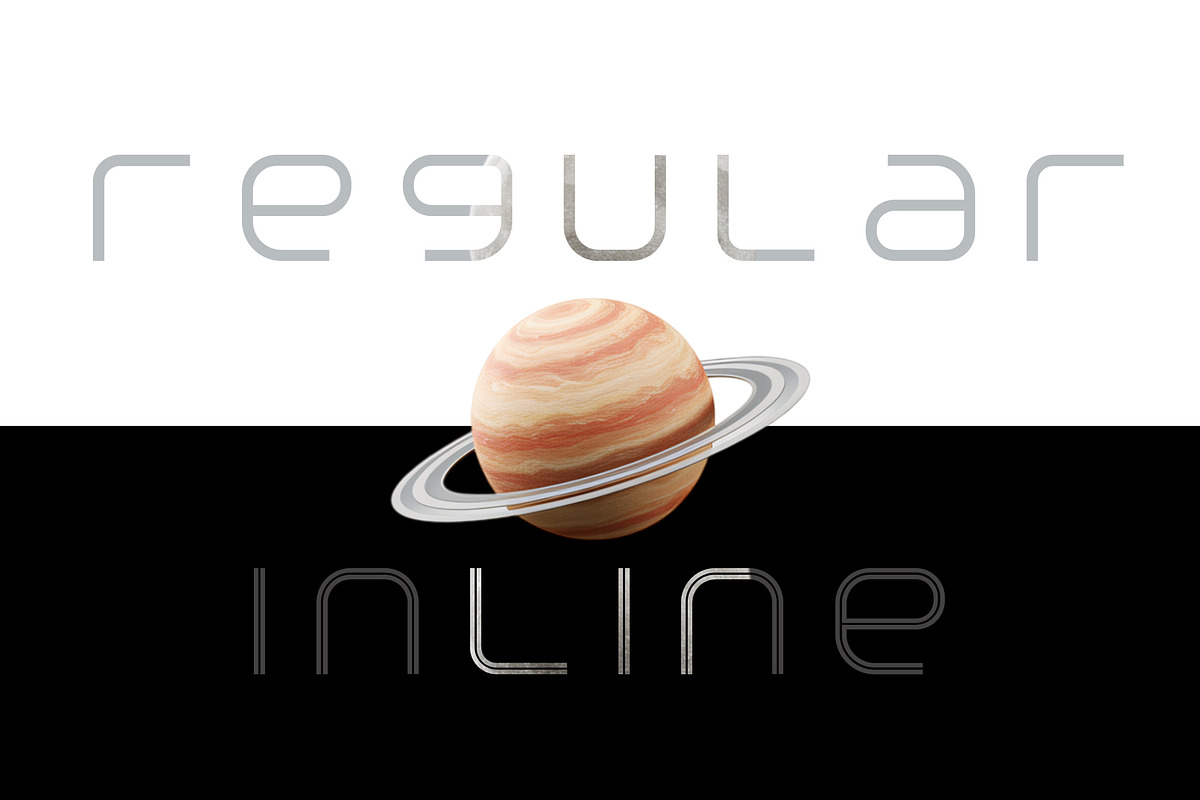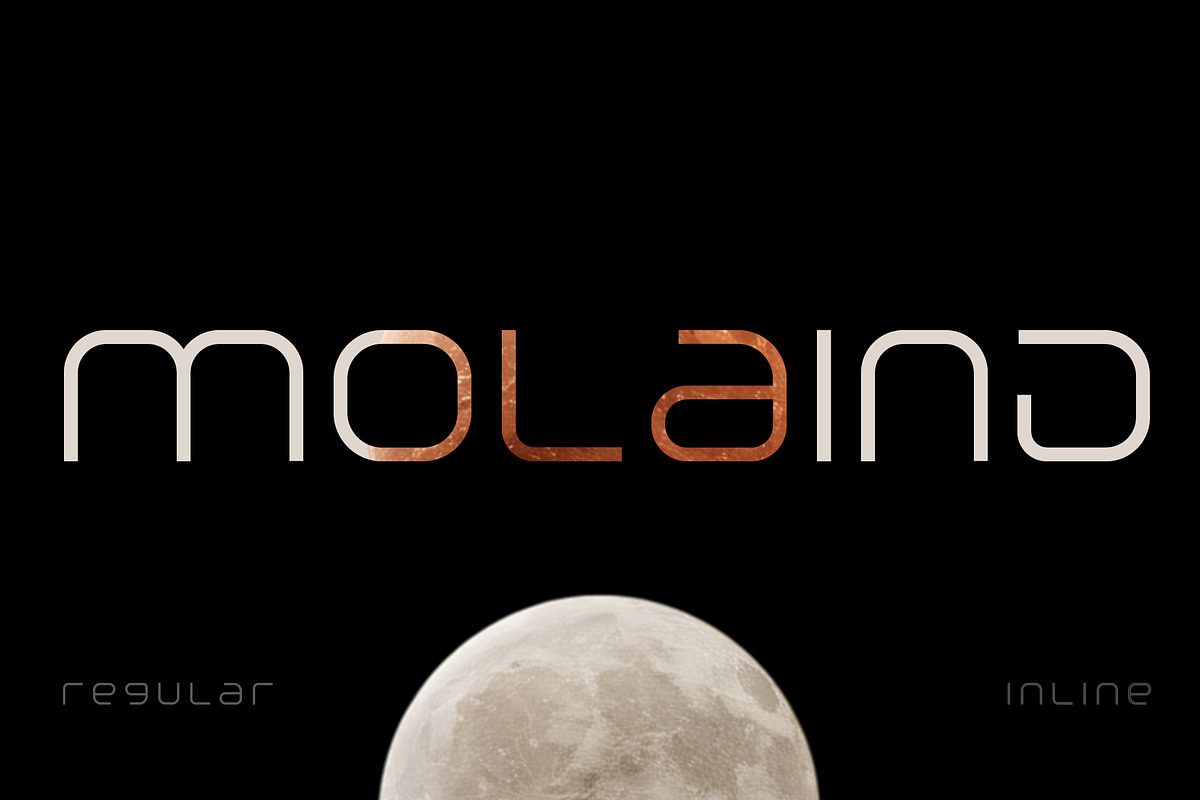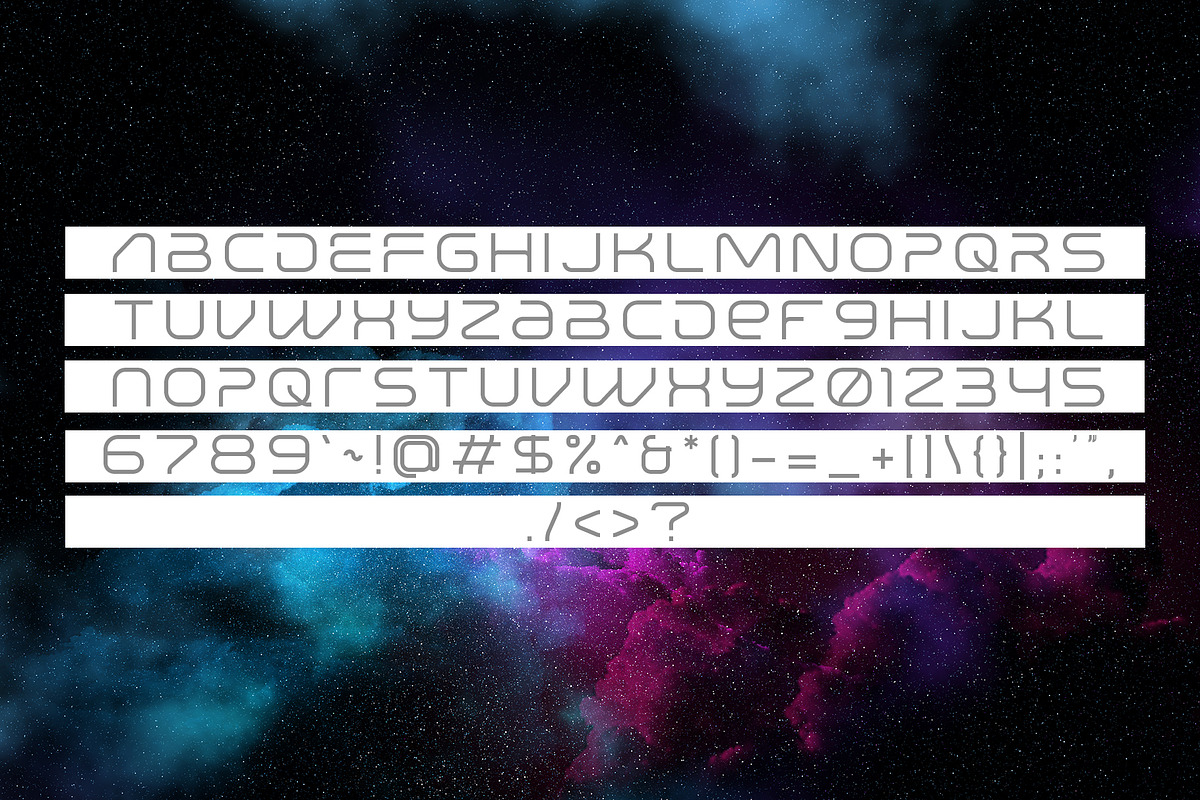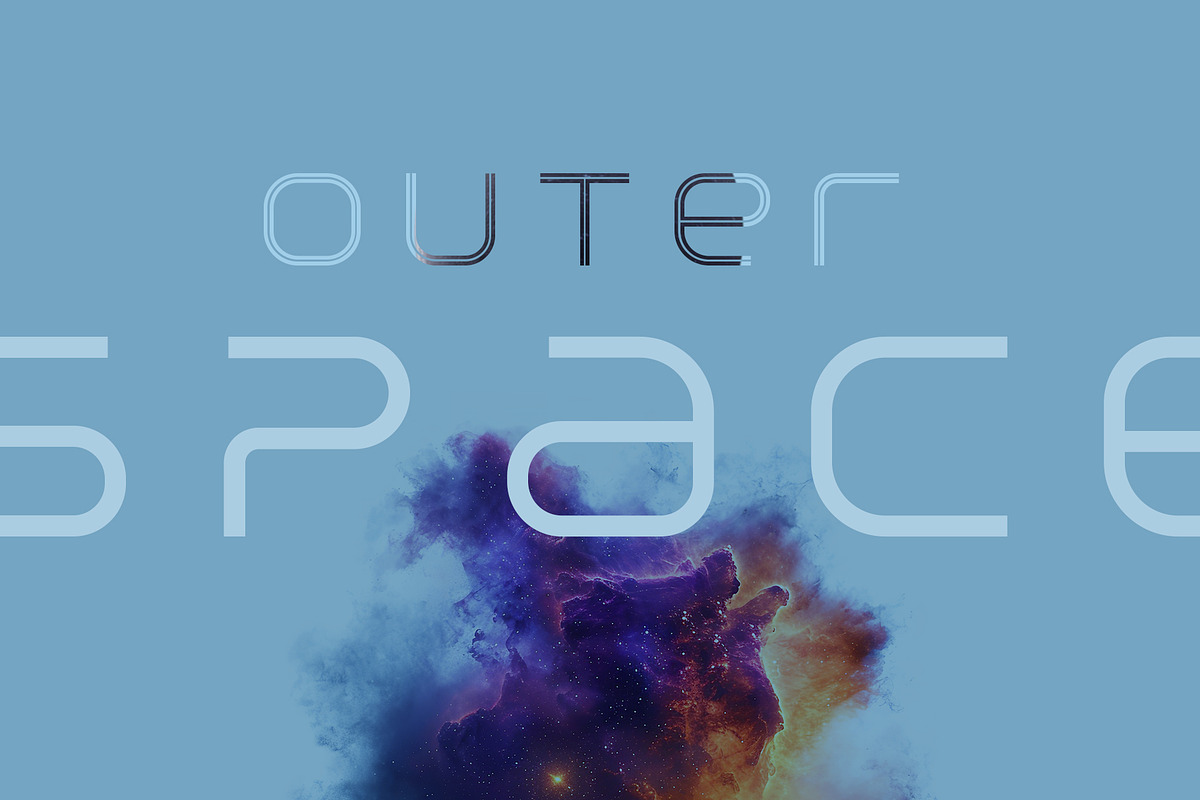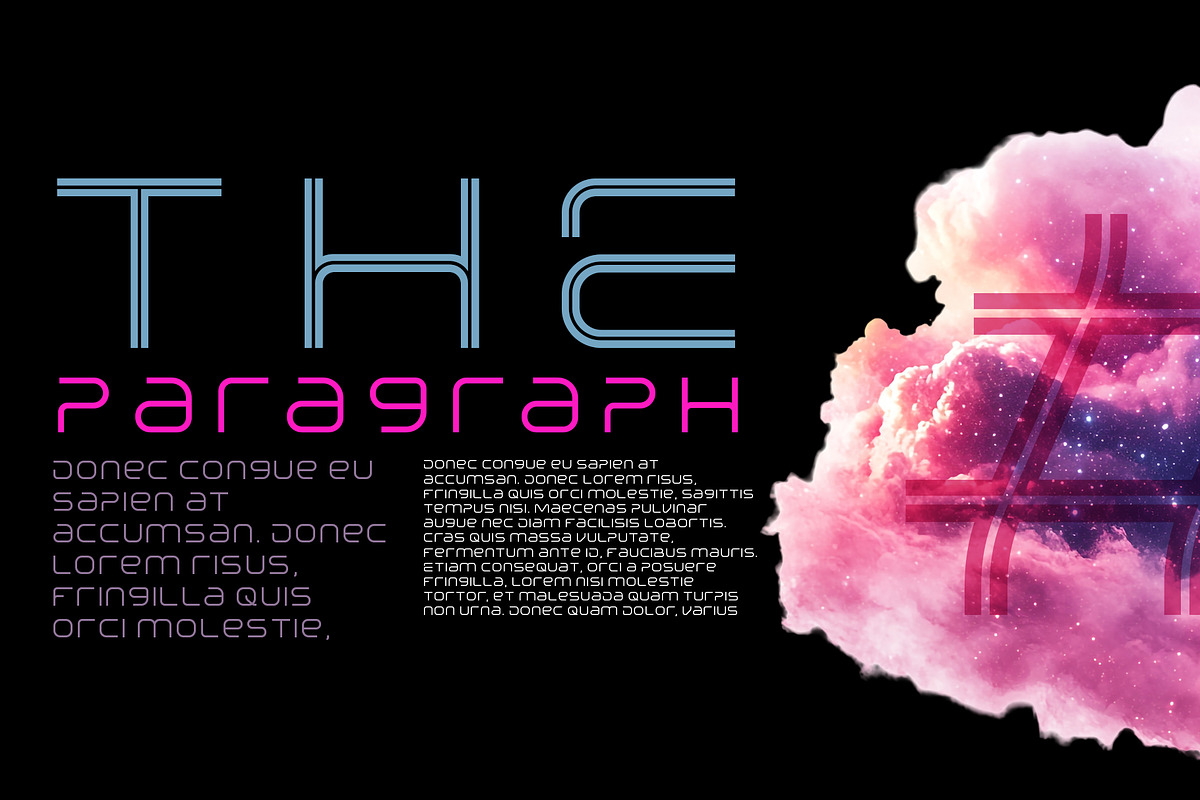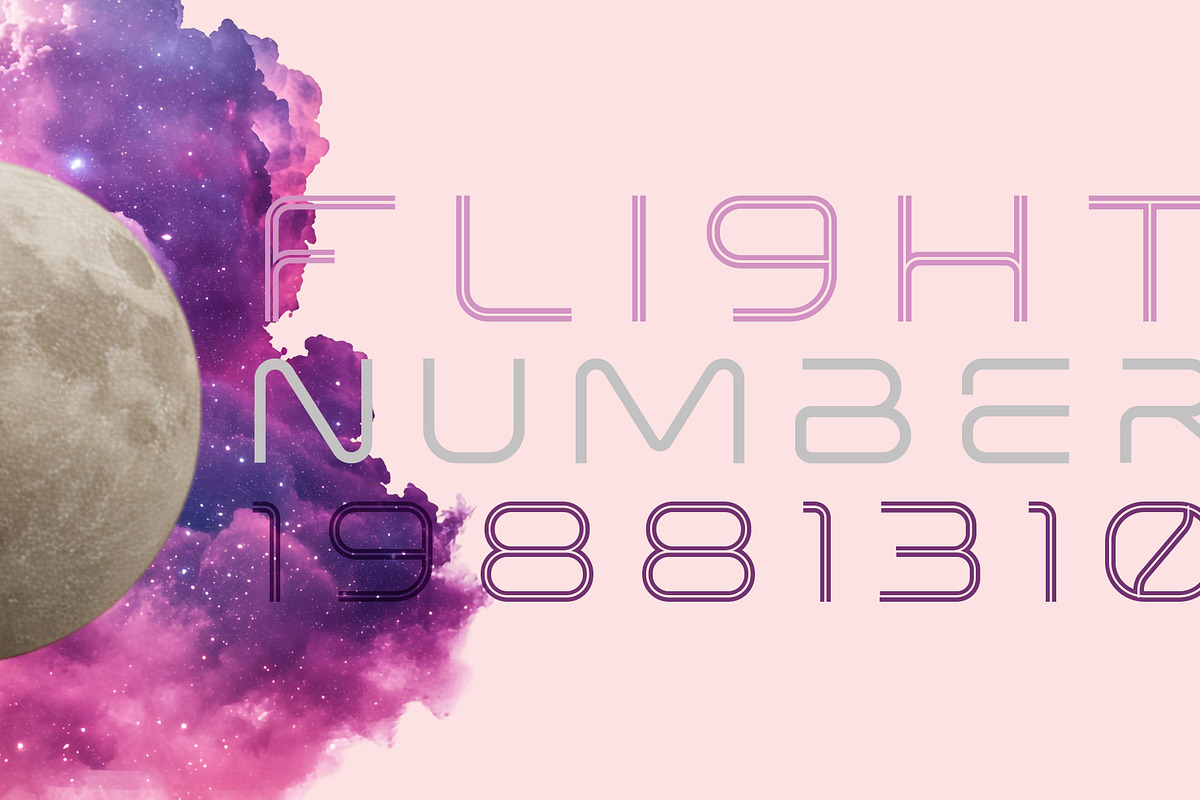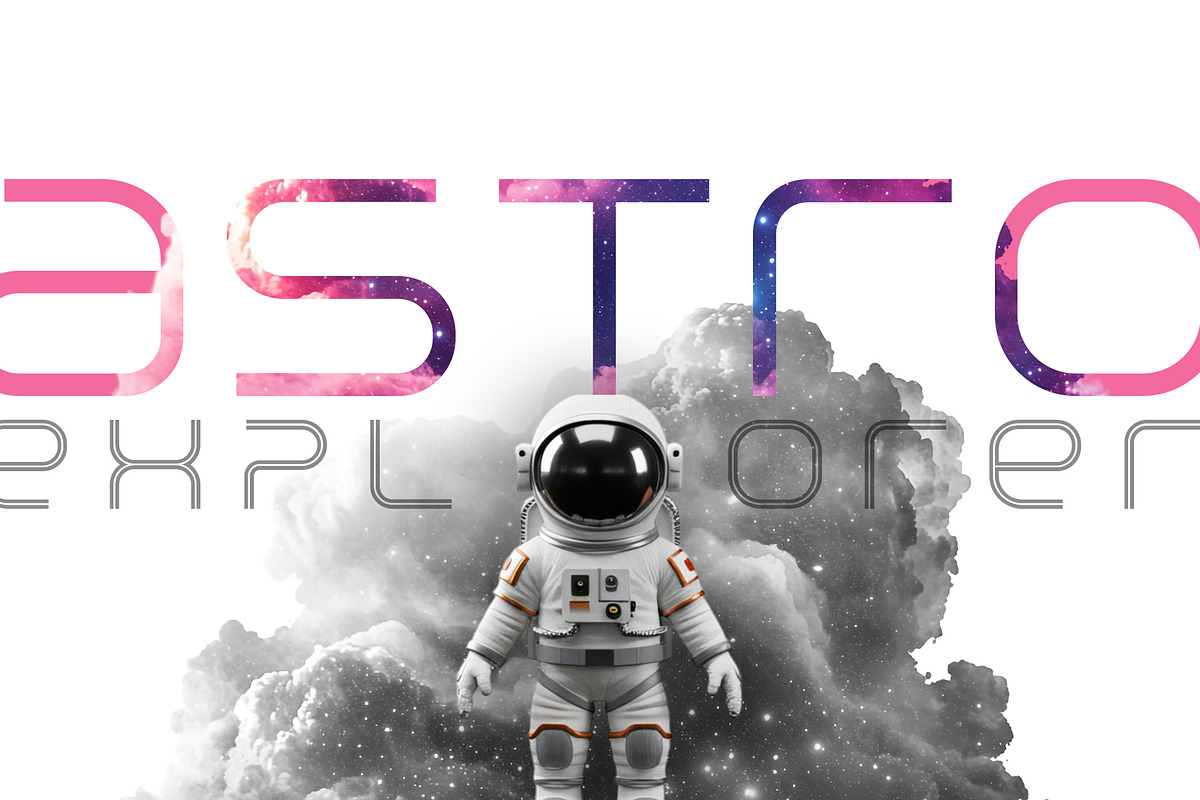
Molaind
Molaind is a clean, modern and minimalist font that inspired by outer space typeface. It's very versatile in use, especially in logo design or brand identity project. It comes with two style : regular and inline.